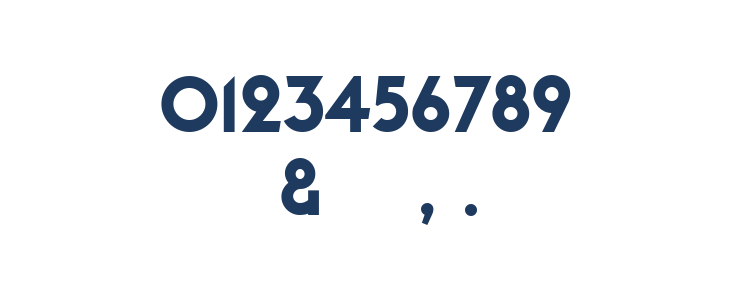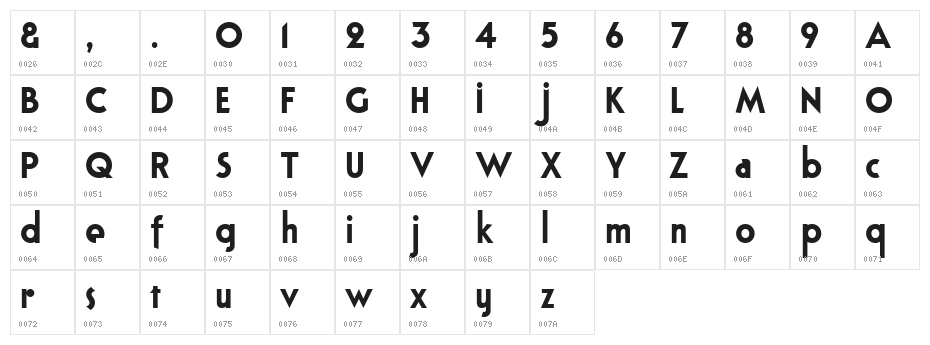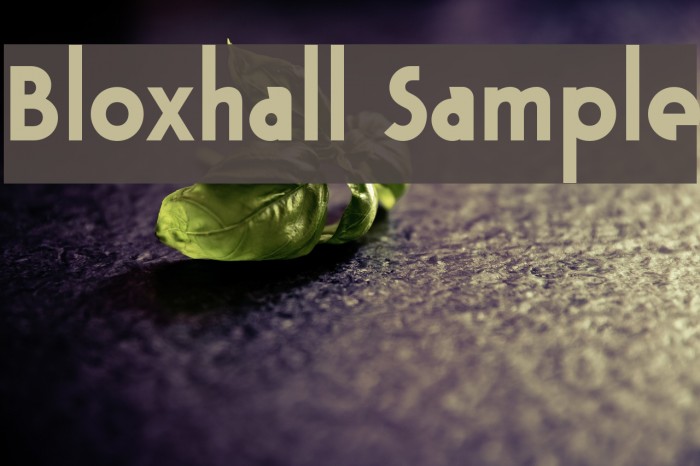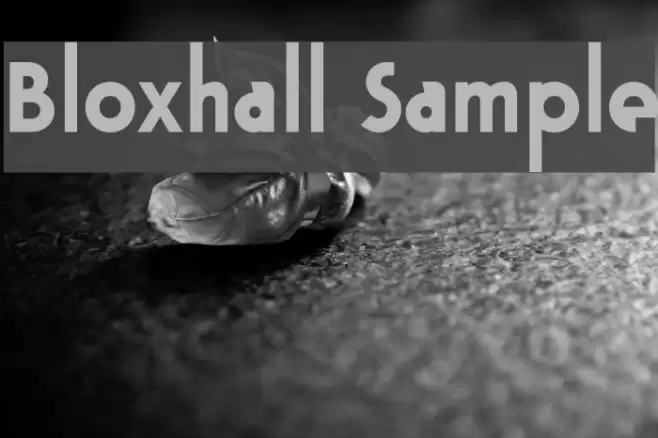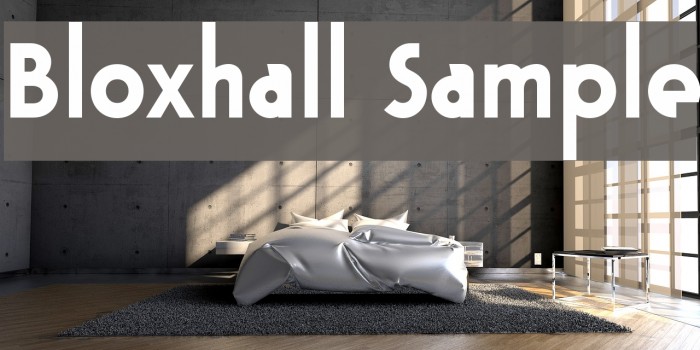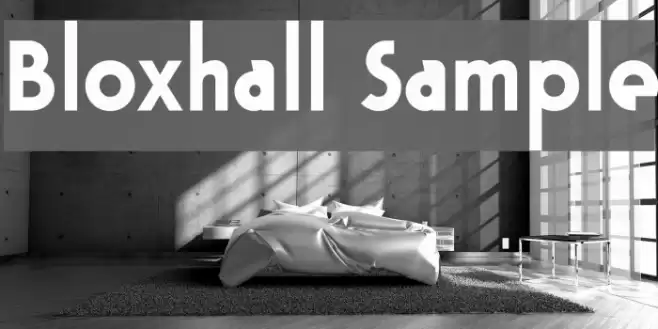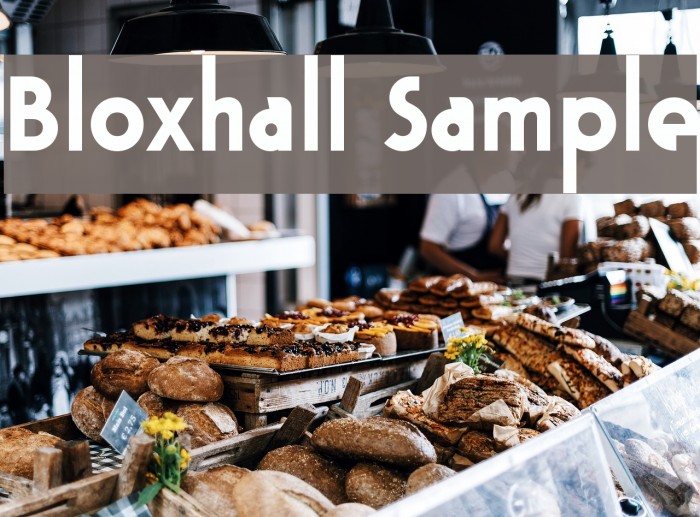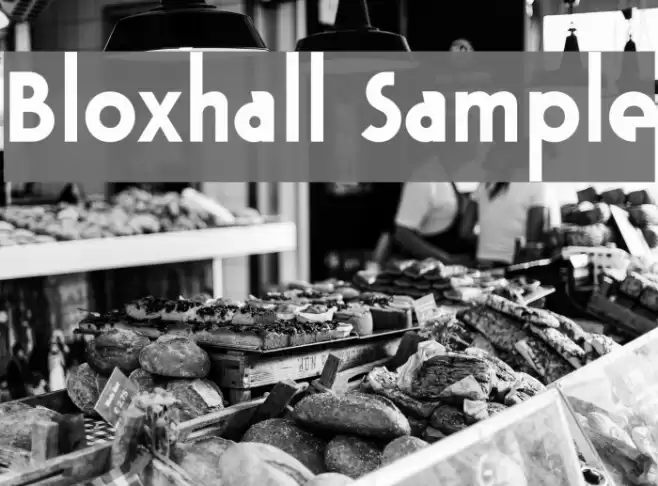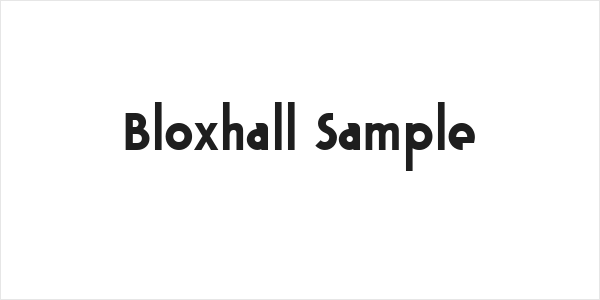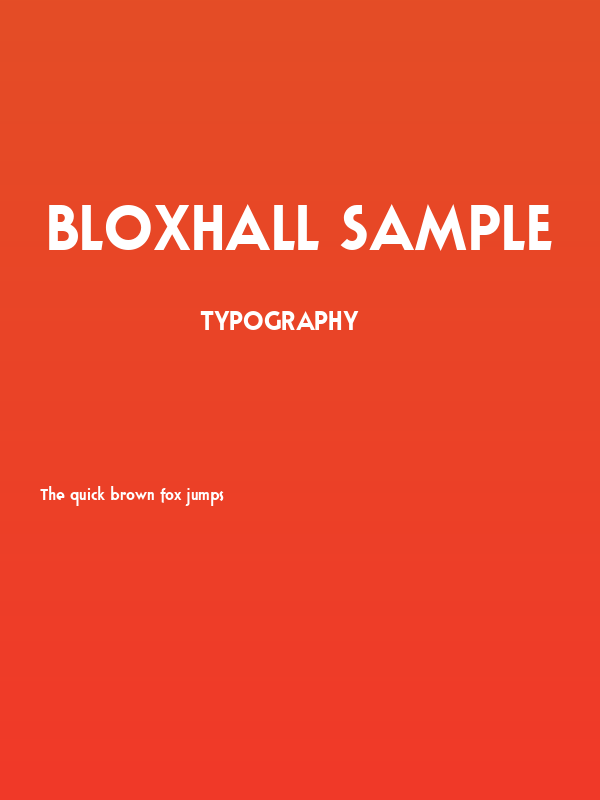
Bloxhall Sample Font
Bloxhall Sample Description
This font exhibits a bold and geometric style with clean lines and a modern aesthetic. The uppercase letters are characterized by their strong, angular forms, while the lowercase letters maintain a consistent, rounded appearance. The numerals are distinct and easy to read, featuring a similar geometric style. The special characters are well-integrated, matching the overall boldness and clarity of the font. This typeface is designed to make a strong visual impact, suitable for various design applications where a modern and assertive look is desired.
| Proposed Projects | Ideal for branding, posters, headlines, and any project requiring a strong visual impact. |